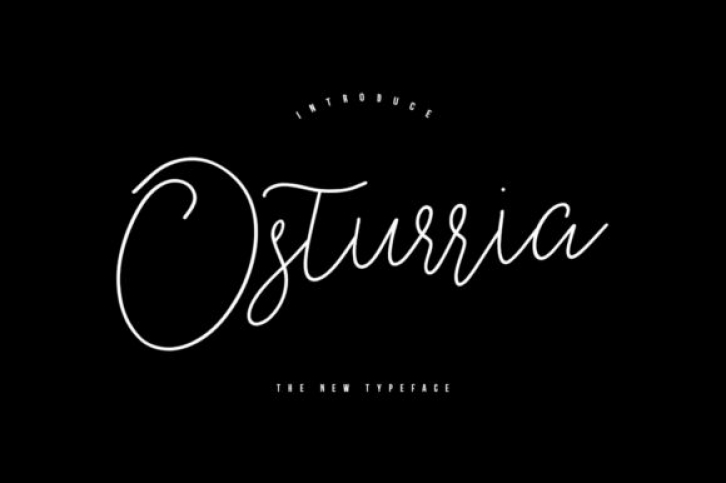
Osturria feels equally charming and elegant. This stunning script font is a stylish homage to classic calligraphy. Use it for create great logos, cute book covers, stunning stationery and more!